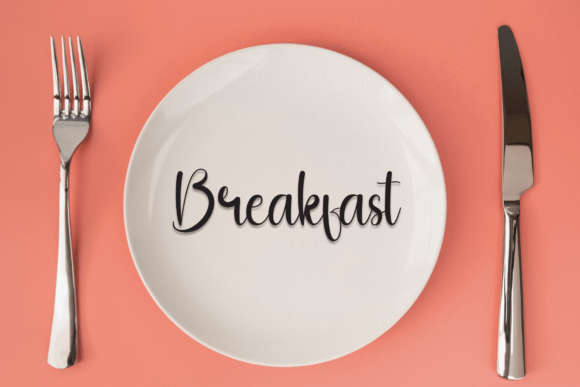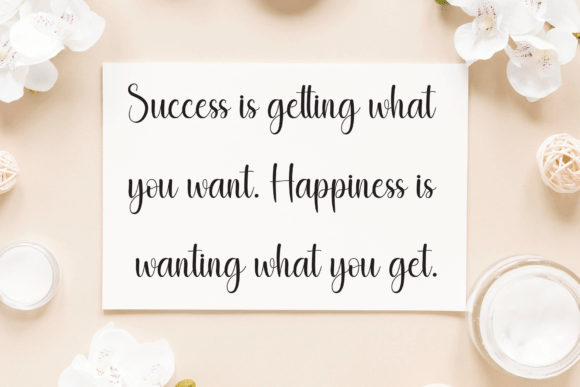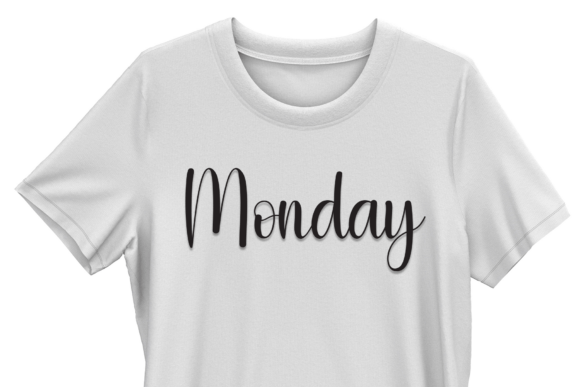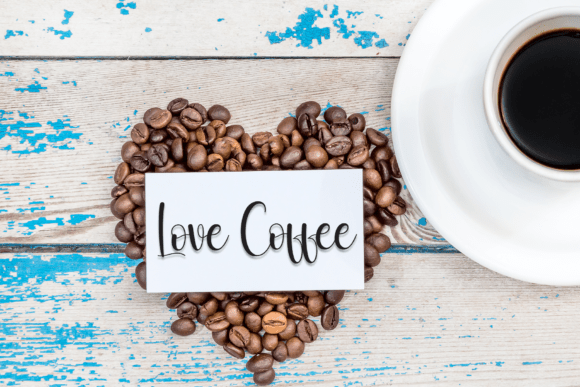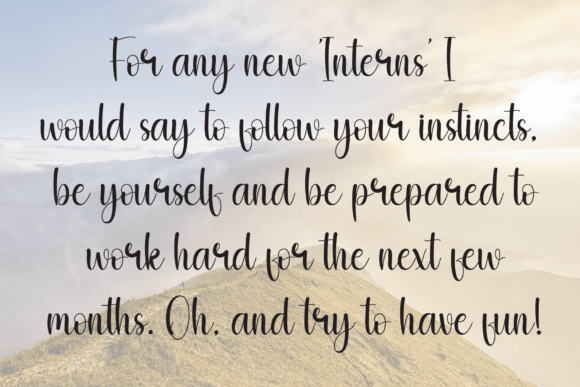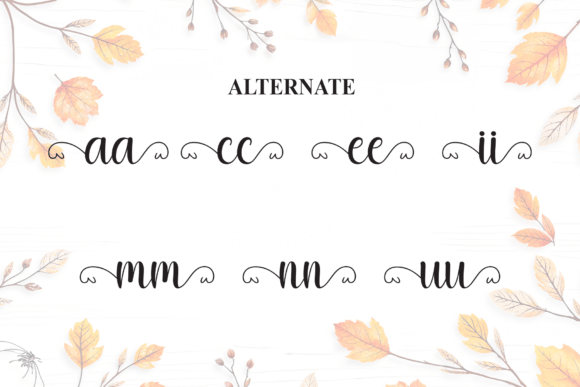
Introducing Autumn Font: A Refreshingly Warm Handwritten Display Font
Are you looking for a font that can add a touch of quirkiness and playfulness to your designs? Look no further than Autumn Font, a delightful handwritten display font that’s perfect for creative endeavors. With its refreshingly warm and sweet tone, this font is ideal for crafting enchanting wedding invitations, sentimental cards, and any design that craves a fun and engaging personality.
The Charm of Autumn Font
Autumn Font is a carefully crafted handwritten display font that’s designed to infuse a fun-filled touch of quirkiness into your designs. Its unique and playful tone makes it perfect for designers and crafters who want to add a personal touch to their work. Whether you’re creating wedding invitations, greeting cards, or social media graphics, Autumn Font is sure to bring a smile to your audience’s faces.
Key Features of Autumn Font
- Handwritten display font: Autumn Font is a beautifully crafted handwritten display font that’s perfect for headlines, titles, and short paragraphs of text.
- Refreshingly warm tone: This font has a warm and inviting tone that’s perfect for creating a cozy and intimate atmosphere in your designs.
- Playful and quirky: Autumn Font has a playful and quirky personality that’s sure to add a touch of whimsy to your designs.
- Easy to read: Despite its playful tone, Autumn Font is easy to read and understand, making it perfect for body text and short paragraphs.
Use Cases for Autumn Font
Autumn Font is a versatile font that can be used in a variety of design projects, including:
- Wedding invitations: Add a touch of romance and whimsy to your wedding invitations with Autumn Font.
- Sentimental cards: Create heartfelt and emotional cards for special occasions with Autumn Font.
- Social media graphics: Use Autumn Font to create engaging and playful social media graphics that will stand out from the crowd.
- Blog posts: Add a touch of personality to your blog posts with Autumn Font, perfect for lifestyle, fashion, and food bloggers.
Why Choose Autumn Font?
There are many fonts available that can add a touch of quirkiness to your designs, but Autumn Font stands out from the rest. Here are just a few reasons why:
- Unique and original: Autumn Font is a unique and original font that’s sure to make your designs stand out from the crowd.
- High-quality design: This font is carefully crafted with attention to detail, ensuring that it’s both beautiful and functional.
Tips for Using Autumn Font
Here are a few tips for getting the most out of Autumn Font:
- Use it sparingly: Autumn Font is a display font, so use it sparingly to add emphasis and personality to your designs.
- Pair it with other fonts: Autumn Font pairs well with other fonts, so don’t be afraid to experiment with different combinations.
- Experiment with colors: Autumn Font looks great in a variety of colors, so experiment with different hues and shades to find the perfect look for your design.